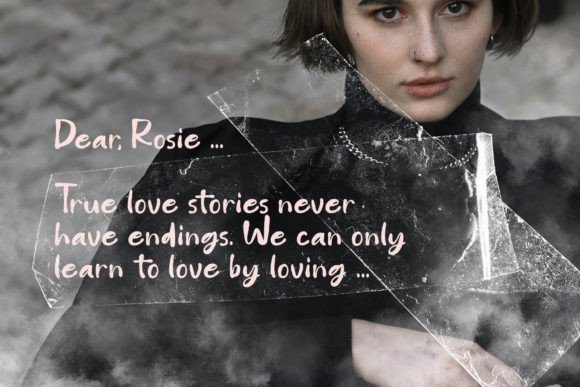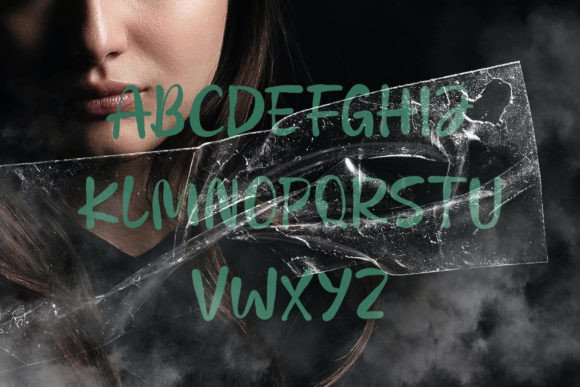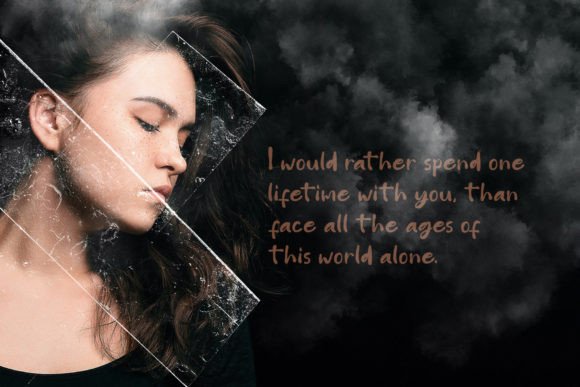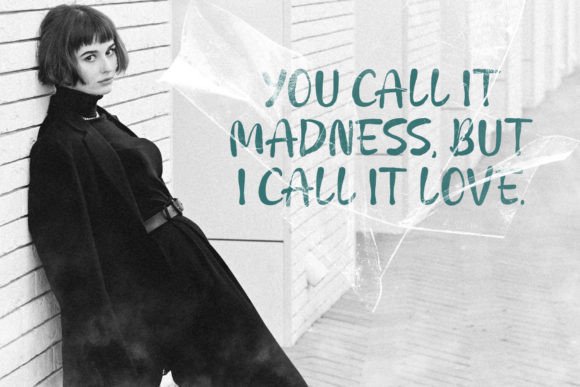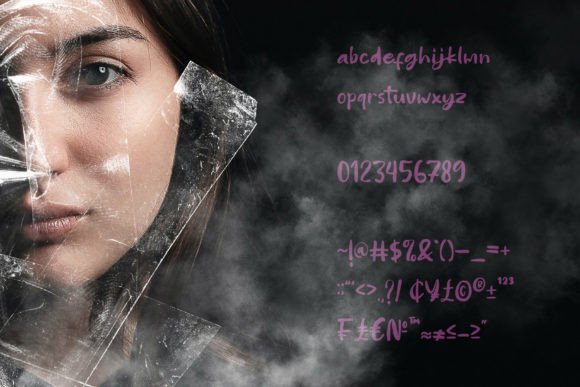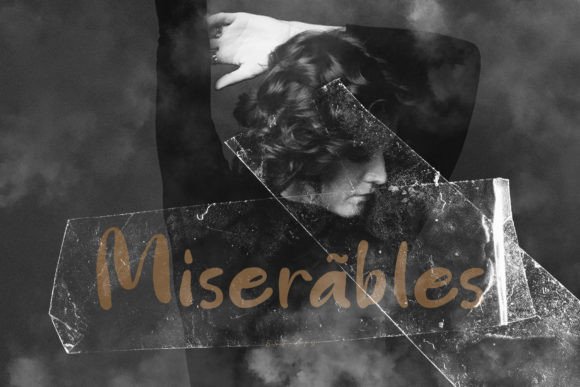
Discover the Charm of Dear Bellotea Font: Elevate Your Designs with this Unique Handwritten Style
Are you tired of using the same old fonts in your designs? Look no further! Dear Bellotea Font is a game-changer, offering a fresh and stylish handwritten look that’s sure to capture the attention of your audience. In this article, we’ll dive into the world of Dear Bellotea, exploring its features, benefits, and uses, and show you how this incredible font can take your creative projects to the next level.
What is Dear Bellotea Font?
Dear Bellotea is a unique and stylish handwritten font, carefully crafted to bring a touch of elegance and sophistication to your designs. With its flowing lines, subtle imperfections, and charming character, this font is perfect for designers, crafters, and anyone looking to add a personal touch to their work.
Key Features of Dear Bellotea Font
- Handwritten style: Dear Bellotea boasts a beautiful, handwritten look that’s perfect for creating invitations, cards, and other personal projects.
- Unique character: Each letter is carefully designed to bring a touch of personality to your designs, making them stand out from the crowd.
- Versatile: Whether you’re working on a digital project or a print design, Dear Bellotea is the perfect choice.
- Easily readable: Despite its elegant style, Dear Bellotea is highly legible, making it perfect for body text and headlines.
Benefits of Using Dear Bellotea Font
So why choose Dear Bellotea Font for your next project? Here are just a few benefits you can expect:
- Add a personal touch: With Dear Bellotea, you can add a personal touch to your designs, making them more relatable and engaging.
- Stand out from the crowd: This unique font is sure to set your designs apart from the competition, helping you to establish a strong brand identity.
- Perfect for creative projects: Whether you’re a designer, crafter, or DIY enthusiast, Dear Bellotea is the perfect choice for a wide range of creative projects.
Uses for Dear Bellotea Font
Dear Bellotea Font is incredibly versatile, making it suitable for a wide range of projects, including:
- Invitations and cards: Create beautiful, personalized invitations and cards for special occasions.
- Branding and packaging: Use Dear Bellotea to create a unique brand identity that sets you apart from the competition.
- Digital projects: Add a touch of elegance to your digital projects, including website headers, social media graphics, and more.
- Print designs: Use Dear Bellotea to create stunning print designs, including brochures, flyers, and posters.
Tips for Using Dear Bellotea Font
To get the most out of Dear Bellotea Font, here are a few tips to keep in mind:
- Experiment with colors: Dear Bellotea looks great in a range of colors, so don’t be afraid to experiment and find the perfect hue for your design.
- Mix and match: Combine Dear Bellotea with other fonts to create a unique and eye-catching design.
- Pay attention to spacing: Make sure to adjust the spacing between letters and words to create a clean and elegant look.
In conclusion, Dear Bellotea Font is a unique and stylish handwritten font that’s perfect for designers, crafters, and anyone looking to add a personal touch to their work. With its flowing lines, subtle imperfections, and charming character, this font is sure to bring a touch of elegance and sophistication to your designs. Whether you’re working on a digital project or a print design, Dear Bellotea is the perfect choice. So why wait? Download Dear Bellotea Font today and take your creative projects to the next level!